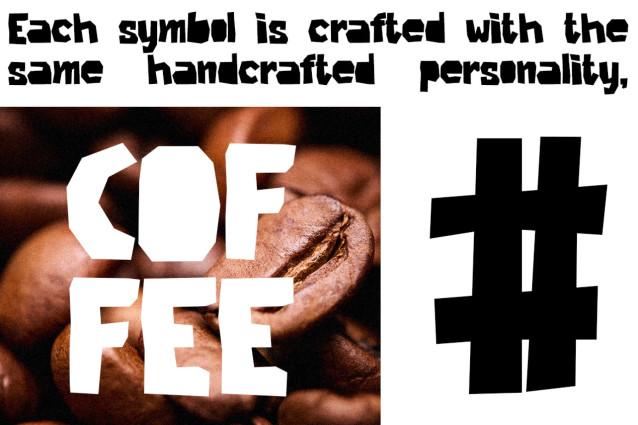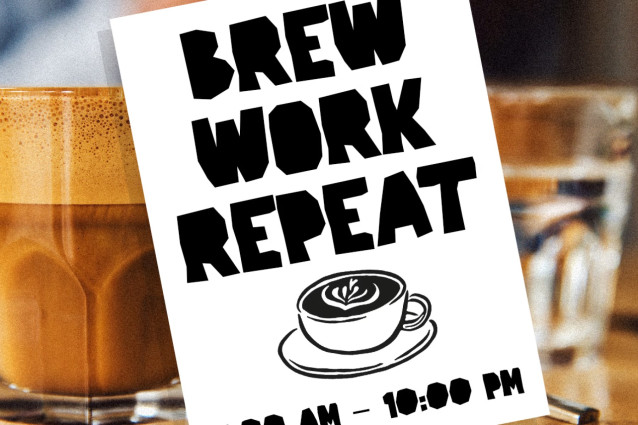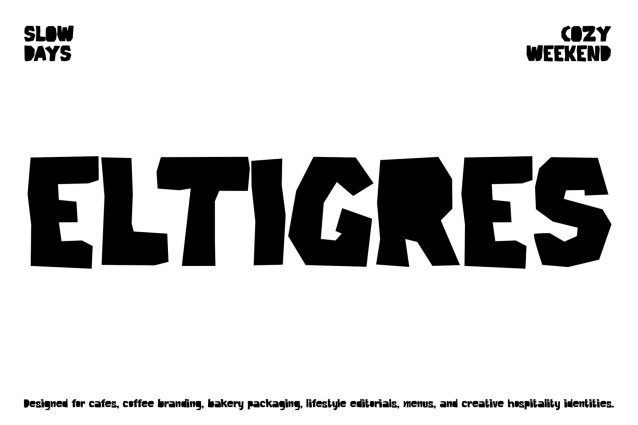
Modern Font Eltigres – Raw Papercut Display Font for Bold Branding & Creative Headlines
Modern Font Eltigres is a bold display font inspired by handcrafted paper-cut shapes that instantly commands attention. With chunky letterforms, rugged edges, and an expressive handcrafted structure, this font creates a strong visual impact while keeping every word clear and readable. Moreover, its unique cutout style delivers an artistic, modern look that feels daring, creative, and full of personality. As a result, your headlines become impossible to overlook.